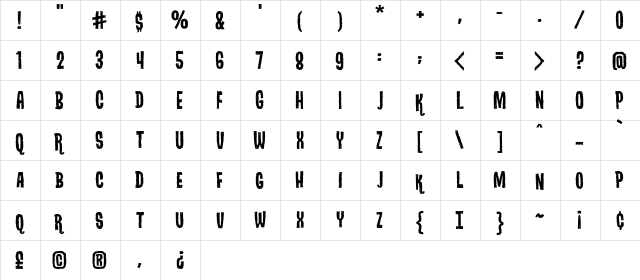
DracuFrankenWolf BB Regular
Design Context for DracuFrankenWolf BB Typeface
DracuFrankenWolf BB is a composed and adaptable typeface that performs quietly and consistently across a wide range of design contexts.